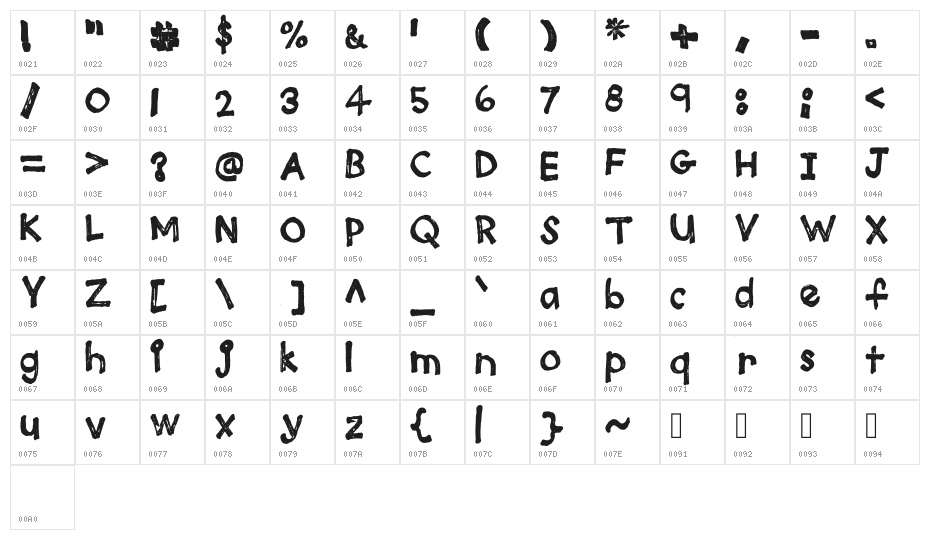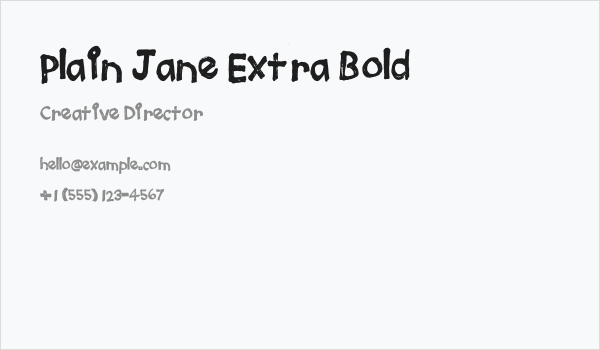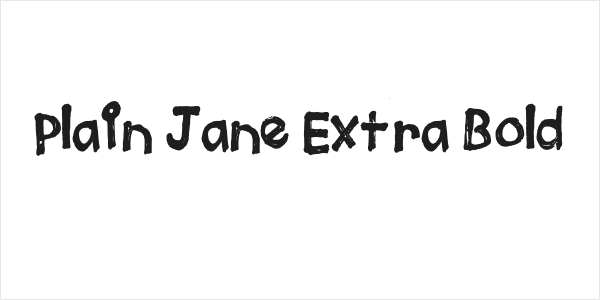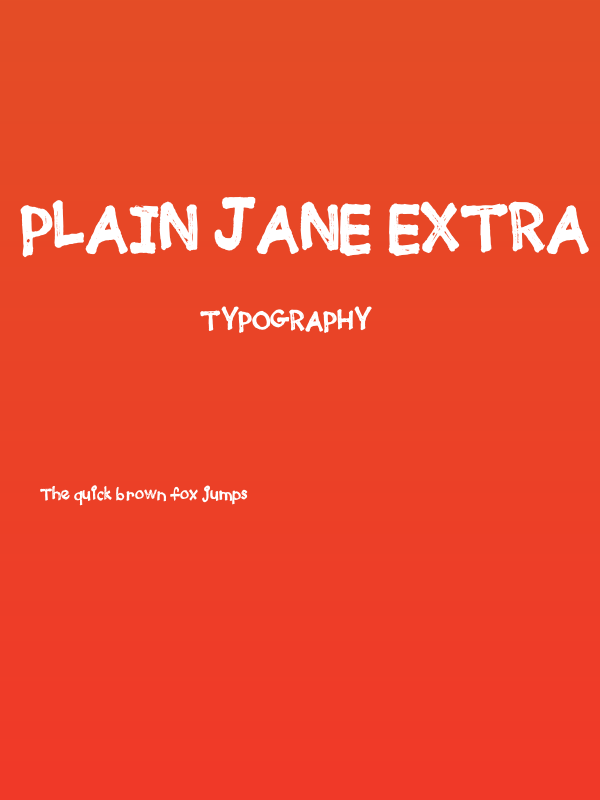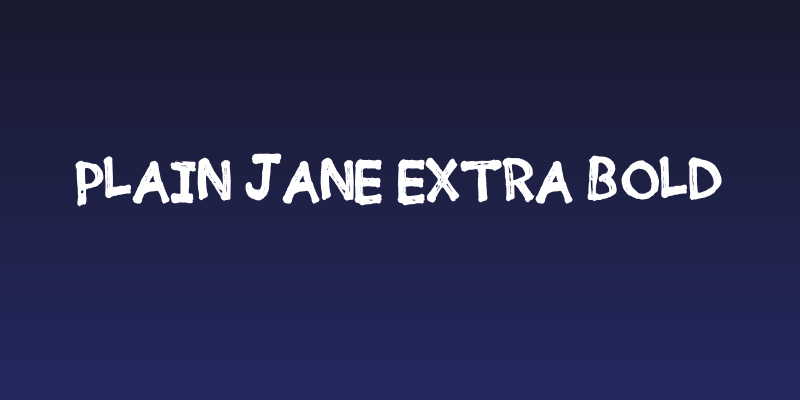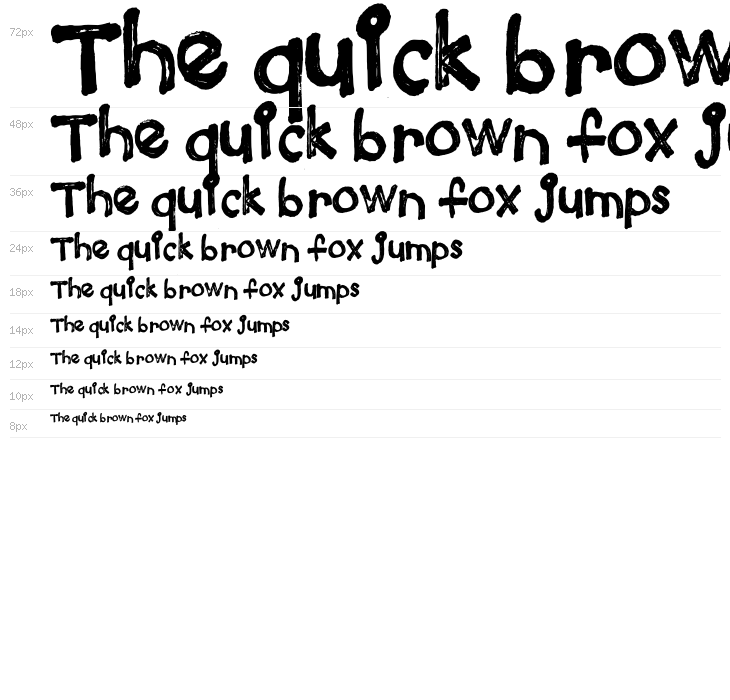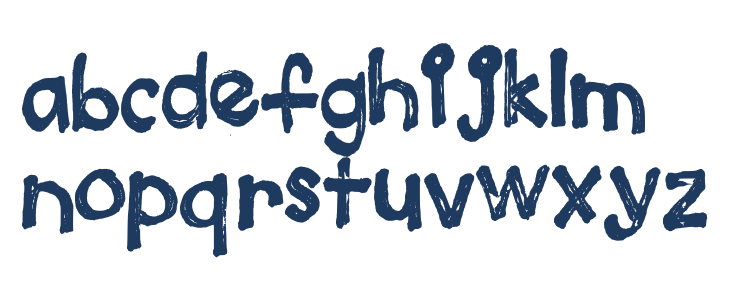
Plain Jane Extra Bold Font
Plain Jane Extra Bold Description
This font exudes a playful and bold character with its thick, hand-drawn strokes and slightly irregular shapes. The uppercase and lowercase letters maintain a consistent weight, giving it a cohesive look. The numbers and special characters follow the same bold style, ensuring uniformity across all glyphs. Its informal and artistic appearance makes it stand out, with each character having a unique flair that adds personality to any text. The font's boldness is complemented by its slightly rough edges, enhancing its handcrafted feel. This style is perfect for projects that require a touch of creativity and individuality.
| Proposed Projects | Ideal for children's book covers, creative posters, playful branding, and artistic social media graphics. |